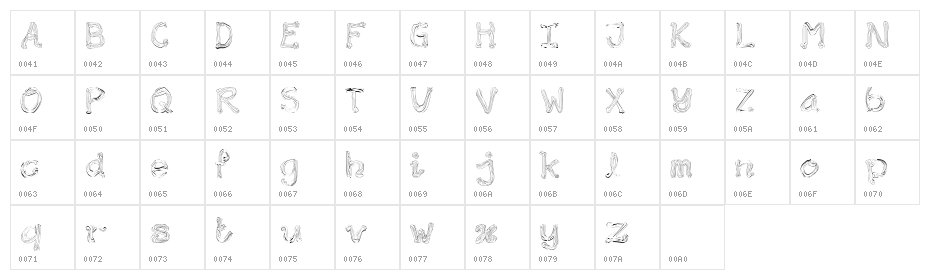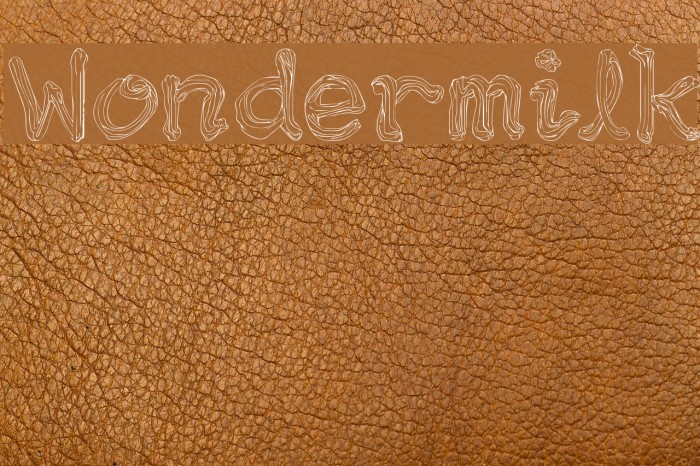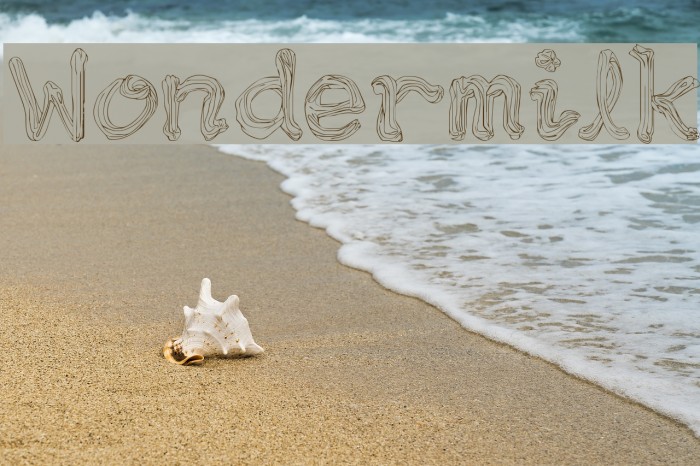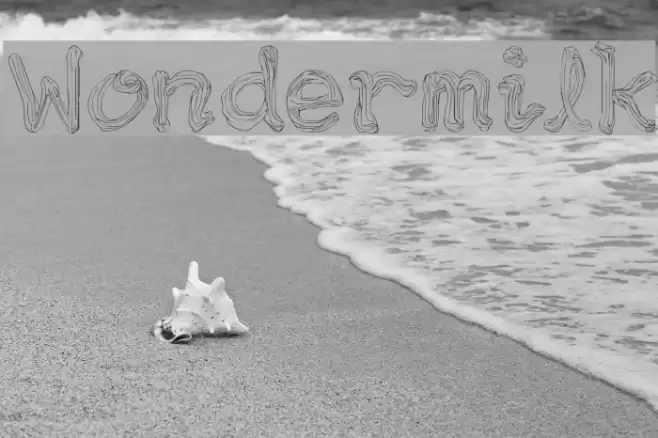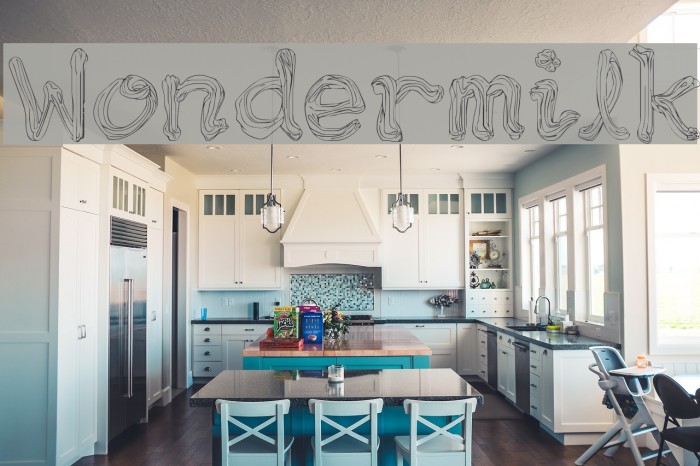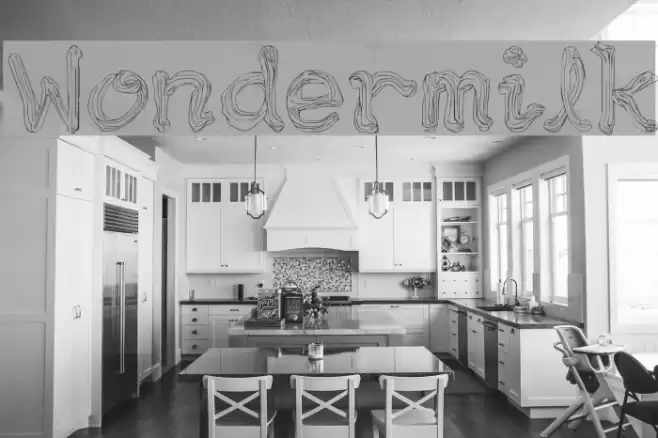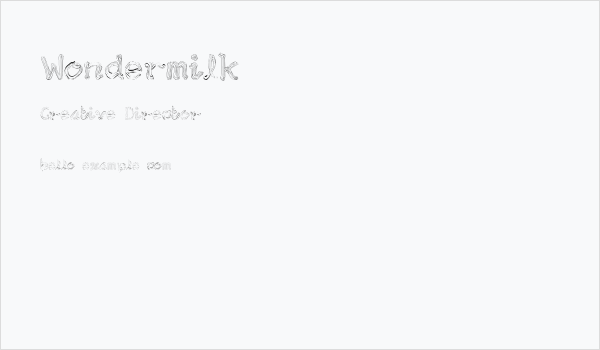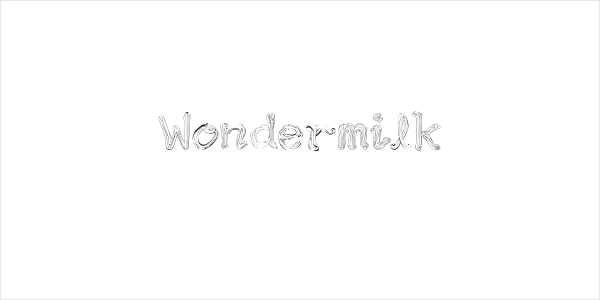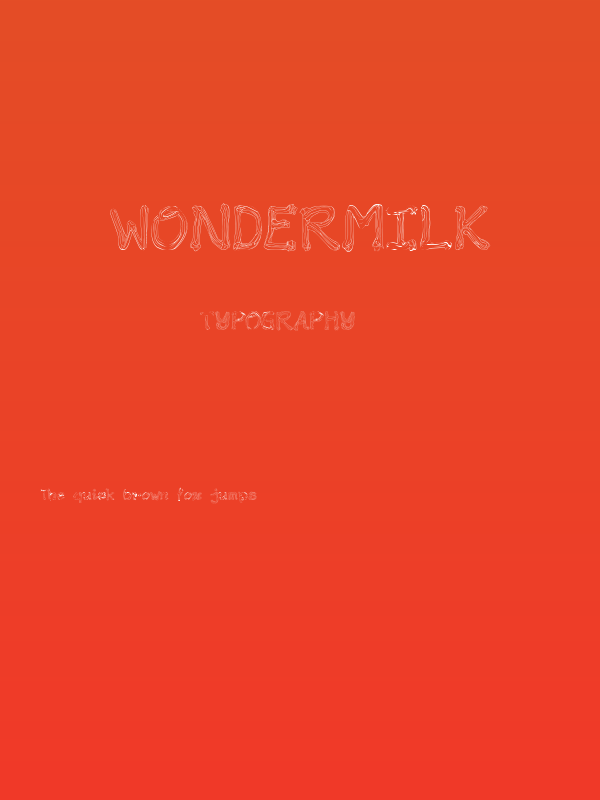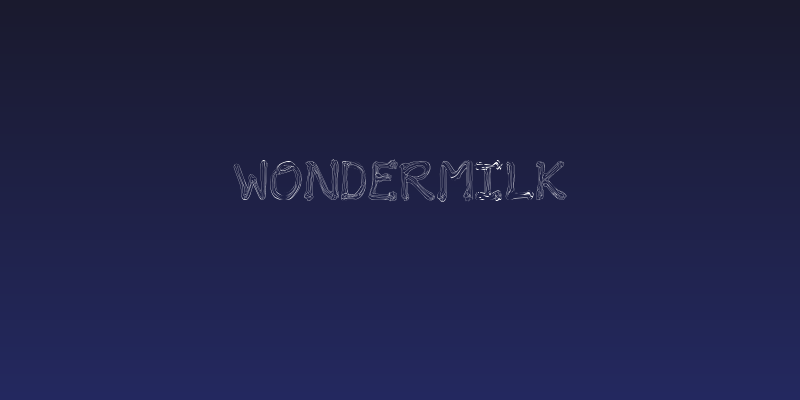
Wondermilk Font
Wondermilk Description
This font features a whimsical and artistic design, characterized by its intricate, hand-drawn appearance. Each letter is crafted with a series of flowing, organic lines that give it a textured and layered look. The strokes are uneven, adding to the playful and creative feel of the font. Despite its decorative nature, the characters remain legible and distinct, making it suitable for various creative applications. The font's unique style is reminiscent of natural elements, with a touch of fantasy, making it ideal for projects that require a touch of whimsy and imagination.
| Proposed Projects | Ideal for children's book covers, artistic posters, whimsical branding, and creative invitations. |